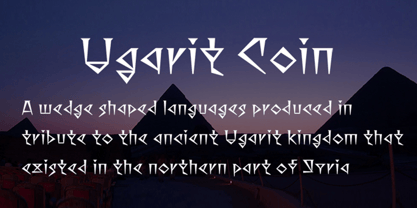
Ugarit Coin
by Seiwado
The ancient city of Ugarit, located in what is now northern Syria, is known for its ruins where cuneiform tablets dating from the 14th to 13th centuries BC were discovered. The latest stage of cuneiform writing found on these tablets is known as Ugaritic. A distinctive feature of this script is that, while being cuneiform, it represents one of the earliest examples of an alphabet, having evolved from the original Proto-Sinaitic script to the Phoenician-derived alphabet. Although Ugaritic is true cuneiform, we created a Latin script in a cuneiform style as a homage to the Ugarit kingdom, which transitioned from cuneiform shapes to an alphabet. Named "Ugarit Coin," the font honors the French word for "wedge" or "cuneiform," coined after the French archaeological expedition that unearthed it in 1929.